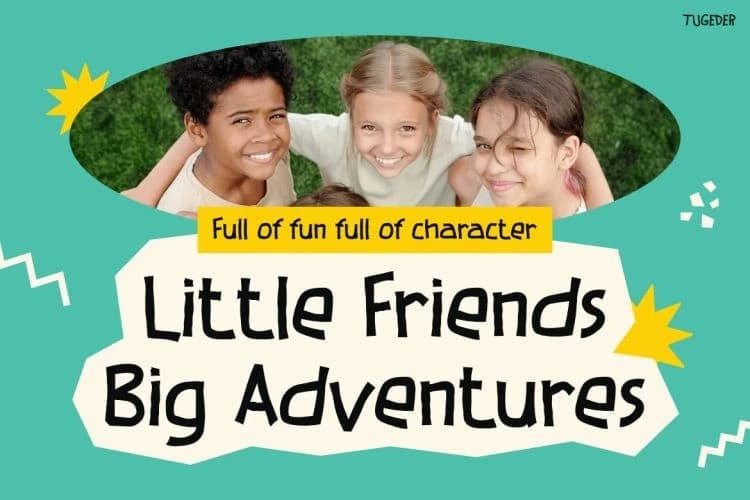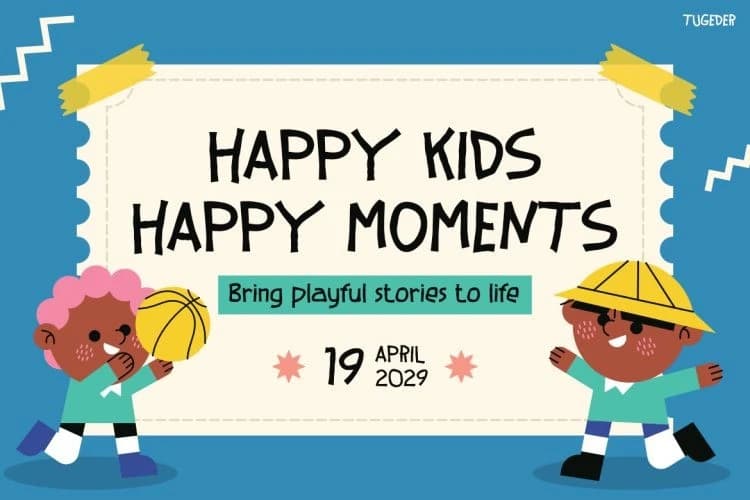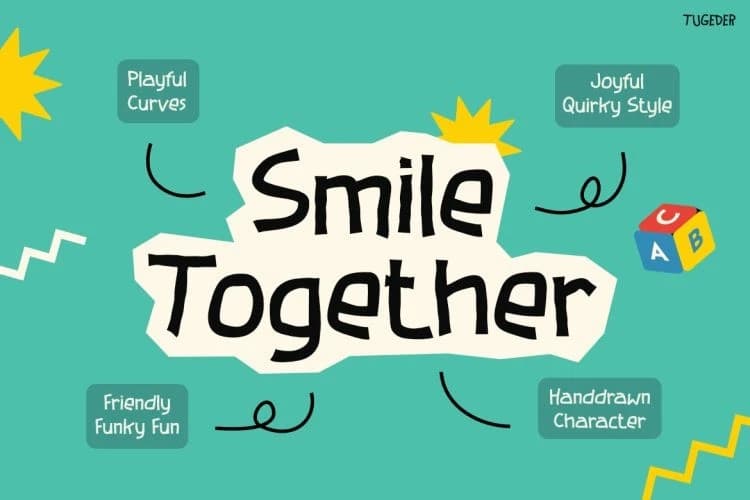
Tugeder Playful Font
Tugeder Playful Font is a bold and energetic display font that instantly brings fun, creativity, and youthful expression into every design. With its hand-drawn graffiti style, playful strokes, and artistic character shapes, this font creates a trendy street-art atmosphere that feels modern and full
Tugeder Playful Font is a bold and energetic display font that instantly brings fun, creativity, and youthful expression into every design. With its hand-drawn graffiti style, playful strokes, and artistic character shapes, this font creates a trendy street-art atmosphere that feels modern and full of personality.